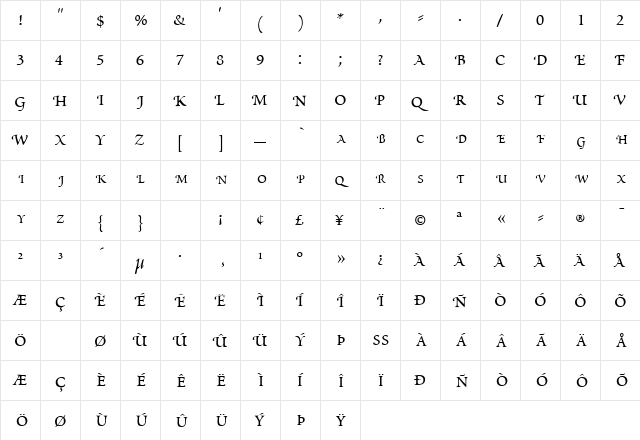
ScriptoriaSCapsSSK Regular
Design Context for ScriptoriaSCapsSSK Typeface
ScriptoriaSCapsSSK flows with the natural rhythm of handwritten lettering, making it ideal for designs that call for warmth and personal expression.
Font Pairing: Combine ScriptoriaSCapsSSK with a simple geometric sans for maximum contrast — the tension between flowing curves and clean structure is a classic typographic pairing.
Pro Tip: Use ScriptoriaSCapsSSK for short runs of text — names, titles, or taglines. Extended body copy in script faces tires the eye quickly.